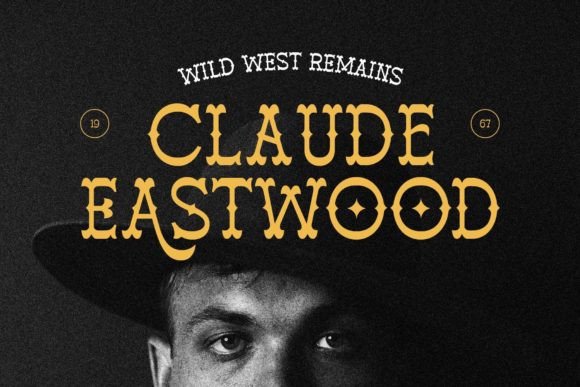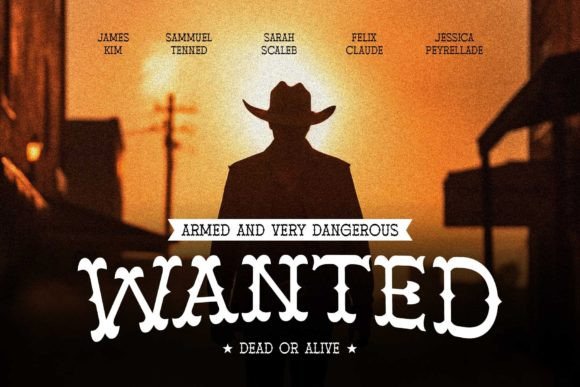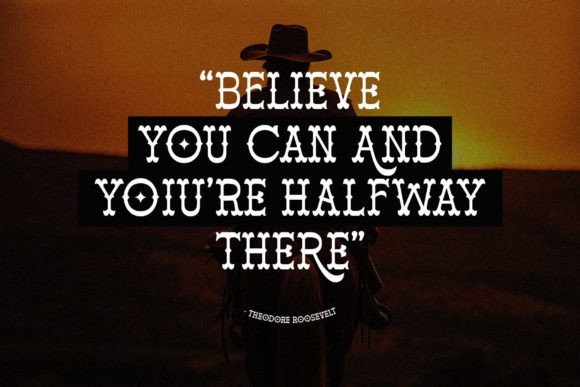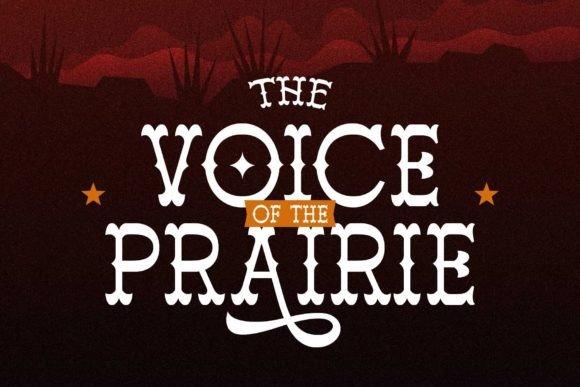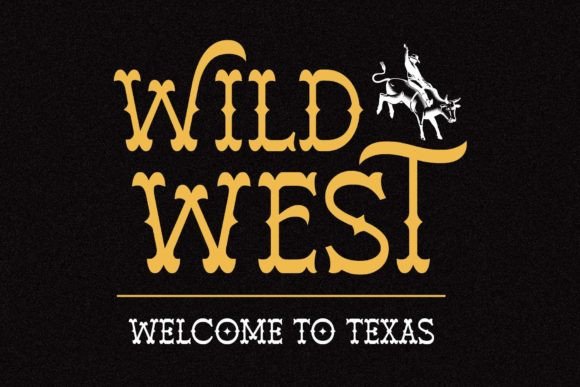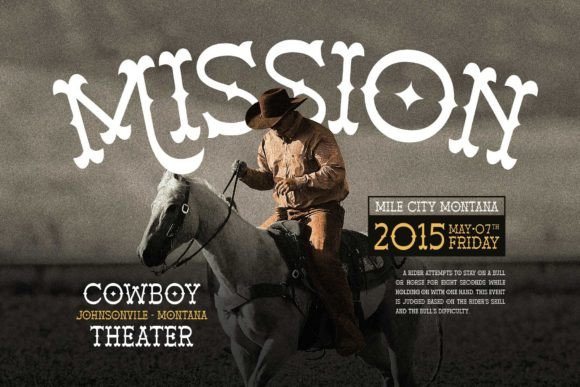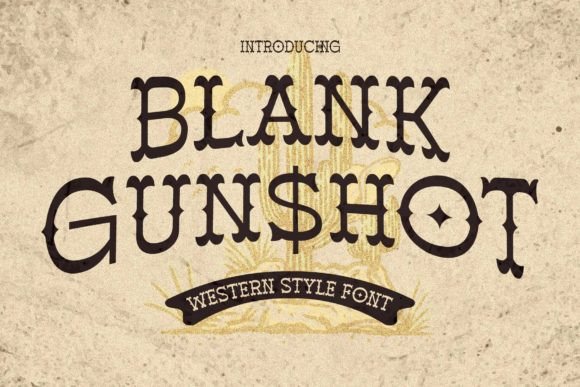
The Wild West of Typography: A Deep Dive into Blank Gunshot Font
I’ll never forget the time I was working on a vintage-themed poster project, and I just couldn’t find the right font to capture the essence of the Wild West. My client wanted something that screamed elegance, sophistication, and a hint of ruggedness. That’s when I stumbled upon Blank Gunshot Font, and let me tell you, it was love at first sight! 💕
Blank Gunshot is an elegant Western slab serif font with a smooth yet sharp appearance, making it ideal for vintage design themes, especially those related to the Wild West style. This font is crafted with additional spurs in the middle of the letters, giving your design a strong yet classy look.
• ✨ Elegant and sophisticated design that’s perfect for vintage themes
• ✅ Smooth yet sharp appearance that adds a touch of ruggedness to your designs
• 💫 Additional spurs in the middle of the letters for a strong yet classy look
• 🎨 Stylistic alternates that allow for beautiful typographic designs
While Blank Gunshot Font is an amazing addition to any design project, there are a few things to keep in mind:
• ⚠️ The font may not be suitable for very small text sizes, as the details may get lost
• 🤔 Some users may find the spurs on the letters a bit too prominent, but this can be adjusted with careful typography
The Designer Inspiration Behind Blank Gunshot Font
While the true story behind Blank Gunshot Font remains a mystery, it’s easy to imagine that the designer was inspired by the rugged yet elegant landscapes of the American West. Perhaps they spent countless hours poring over vintage typography books, searching for the perfect blend of sophistication and ruggedness. Whatever the inspiration, the result is a font that’s both timeless and versatile.
Q: What type of designs is Blank Gunshot Font best suited for?
A: Blank Gunshot Font is ideal for vintage design themes, especially those related to the Wild West style, such as posters, logotypes, logos, headlines, cards, flyers, movies, subheadlines, short texts, quotes, books, magazines, signage, storefronts, stickers, packaging, and more.
Q: Is Blank Gunshot Font easy to read?
A: Yes, Blank Gunshot Font is designed to be elegant and sophisticated while still being easy to read, making it perfect for body text and headlines.